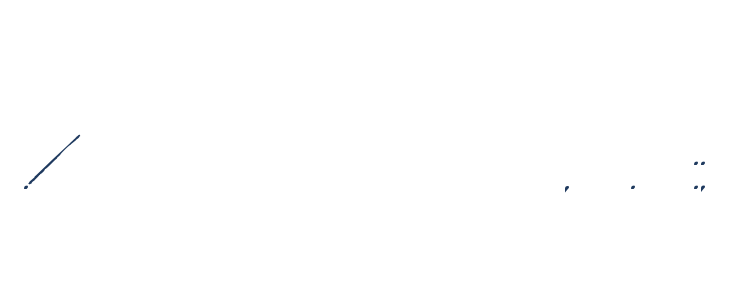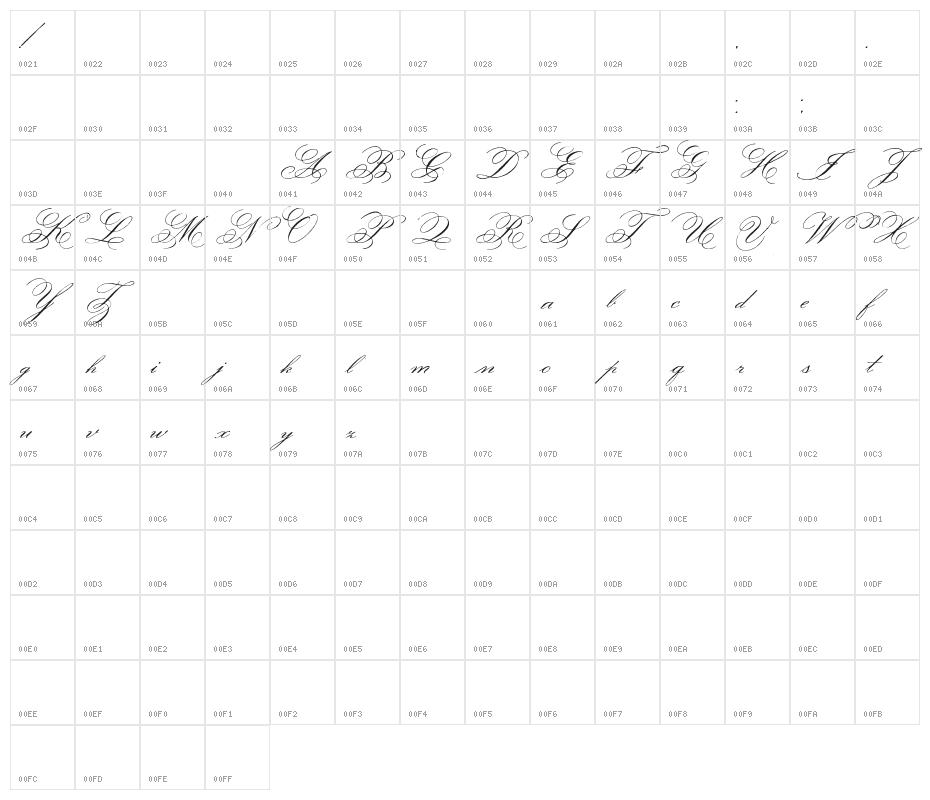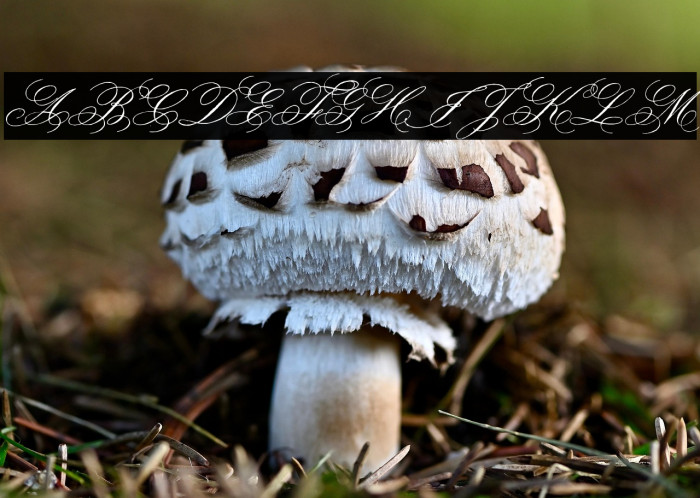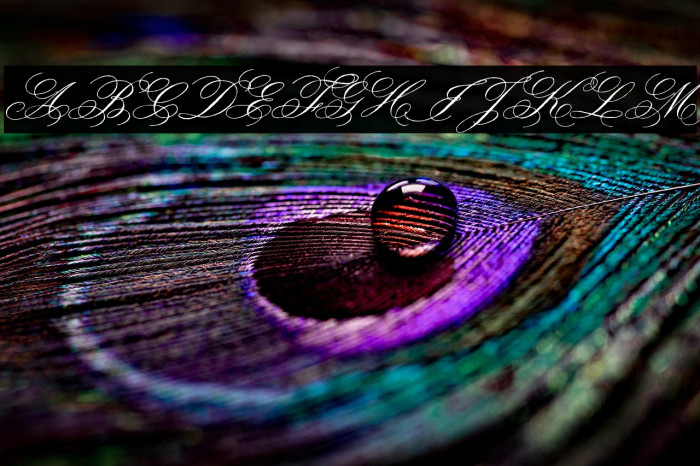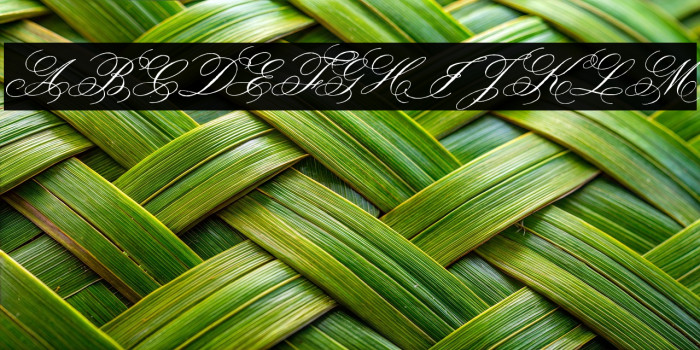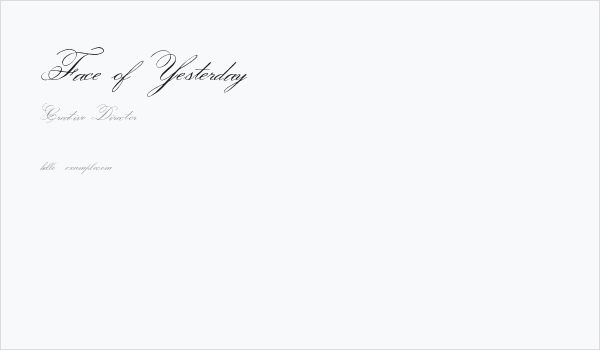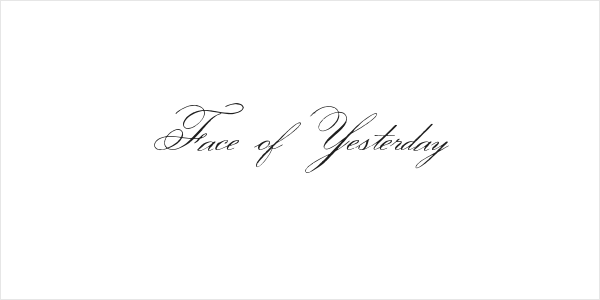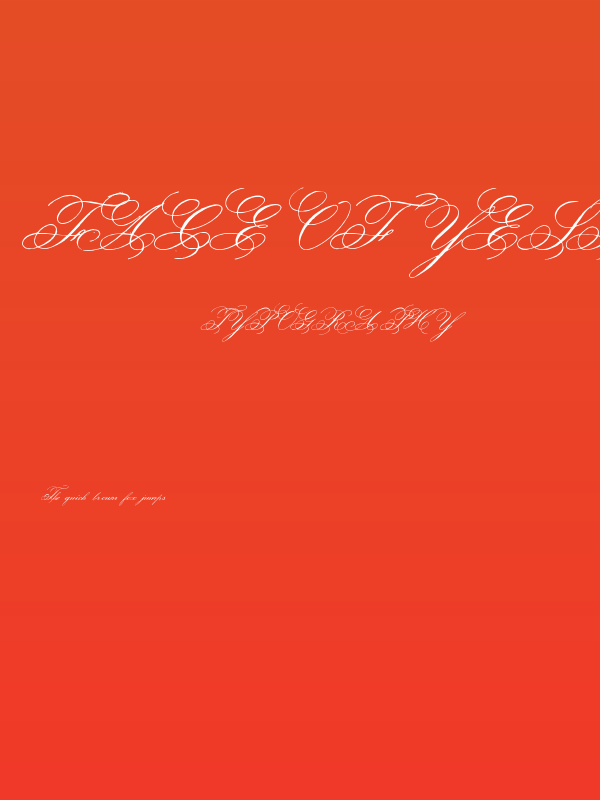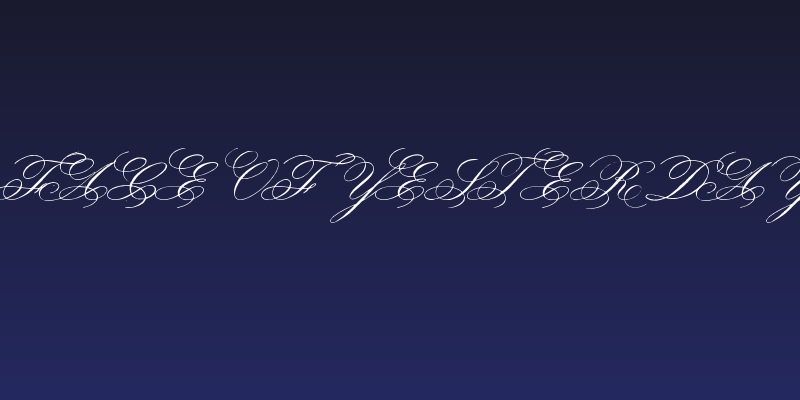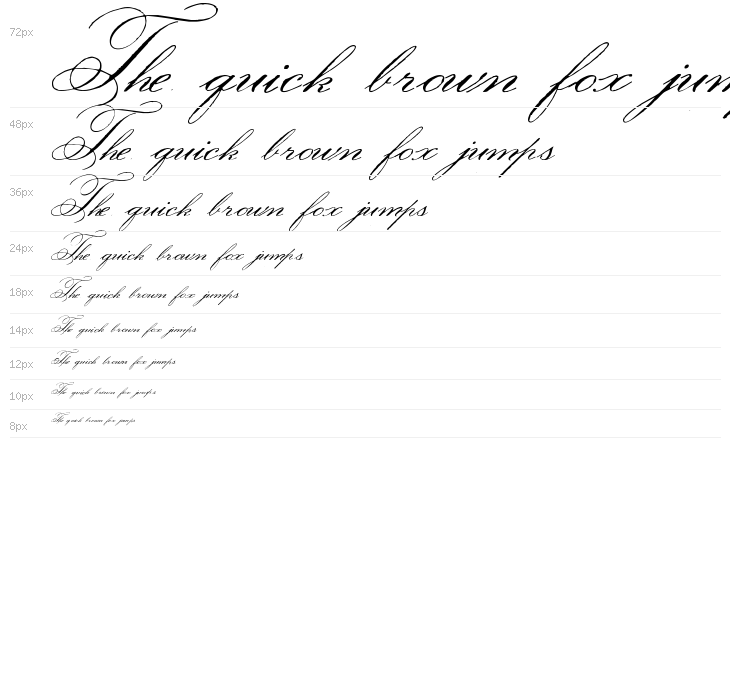
Face of Yesterday Font
Face of Yesterday Description
This elegant script font features intricate, flowing lines and a classic calligraphic style. The uppercase letters are adorned with elaborate swashes and loops, giving them a decorative and sophisticated appearance. The lowercase letters maintain a smooth, cursive flow, enhancing readability while retaining an artistic flair. The numerals and special characters are designed with the same attention to detail, ensuring a cohesive look across all characters. This font exudes a sense of timeless elegance, making it ideal for projects that require a touch of refinement and class.
| Proposed Projects | Ideal for wedding invitations, formal event programs, elegant branding, and luxury product packaging. |